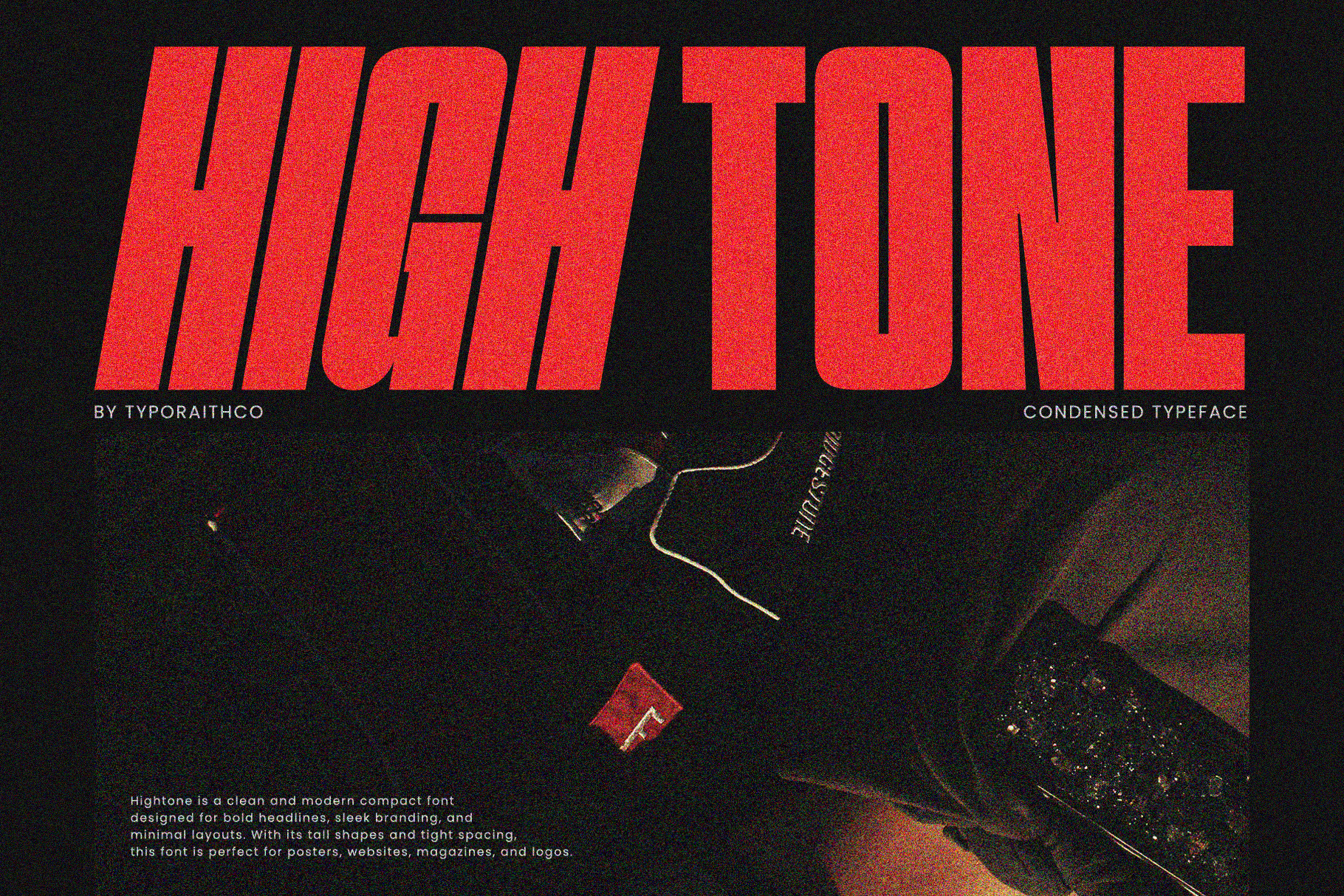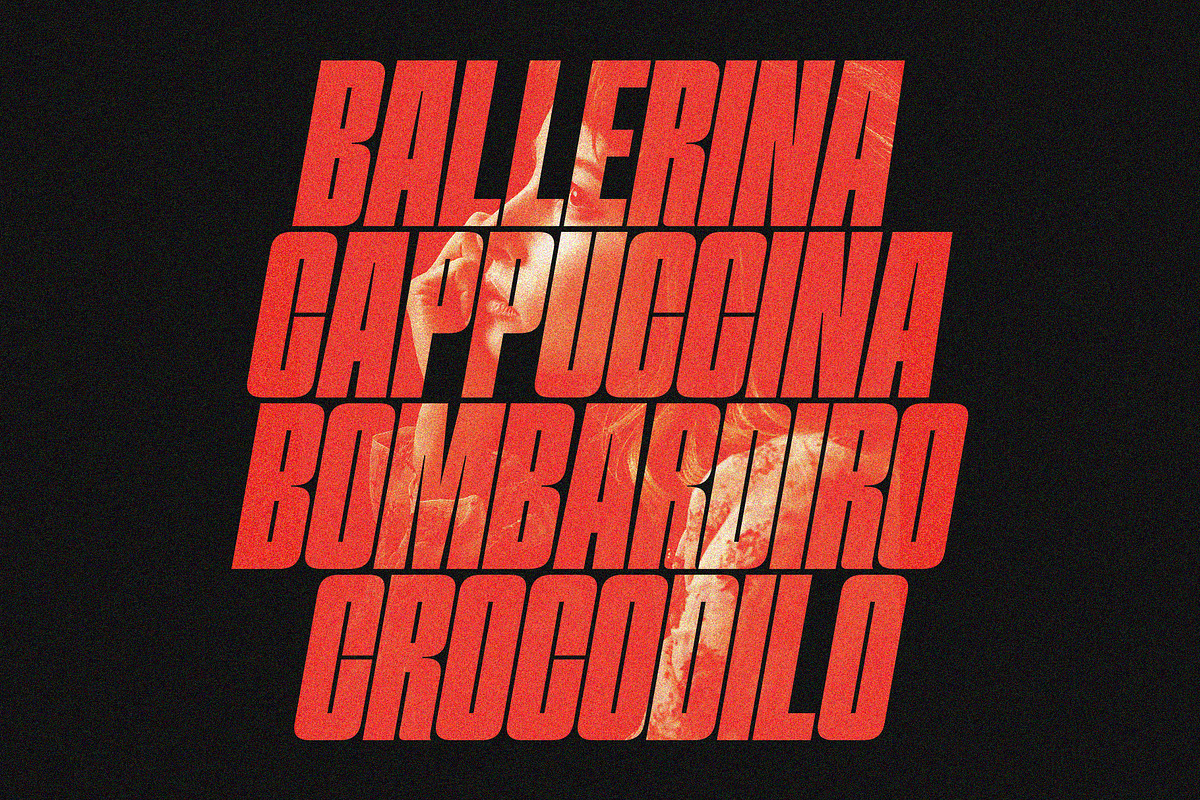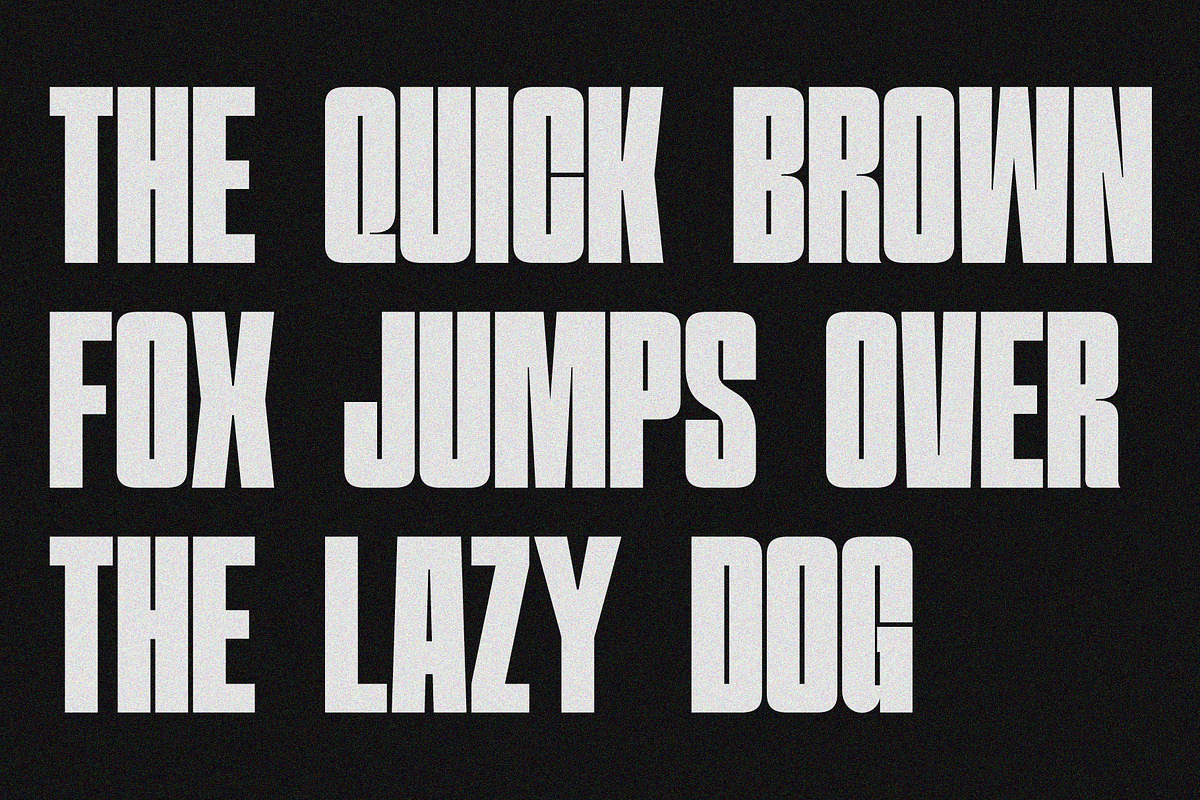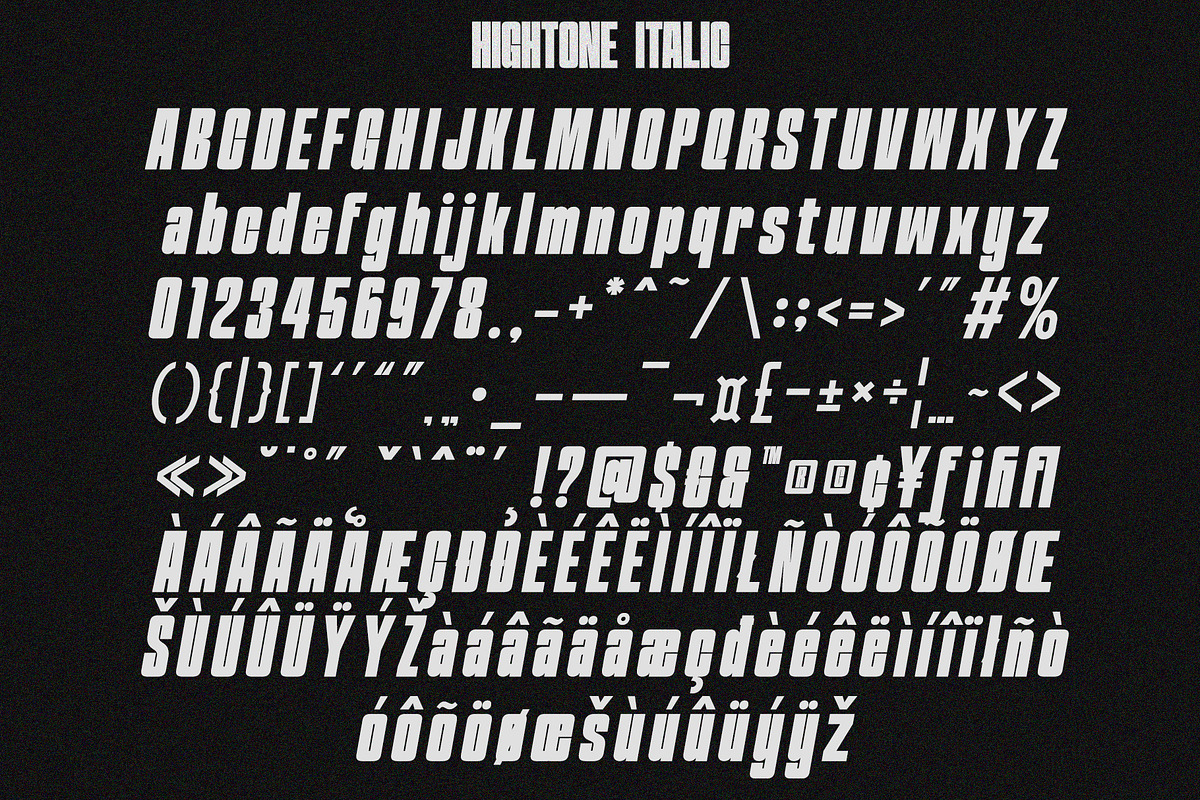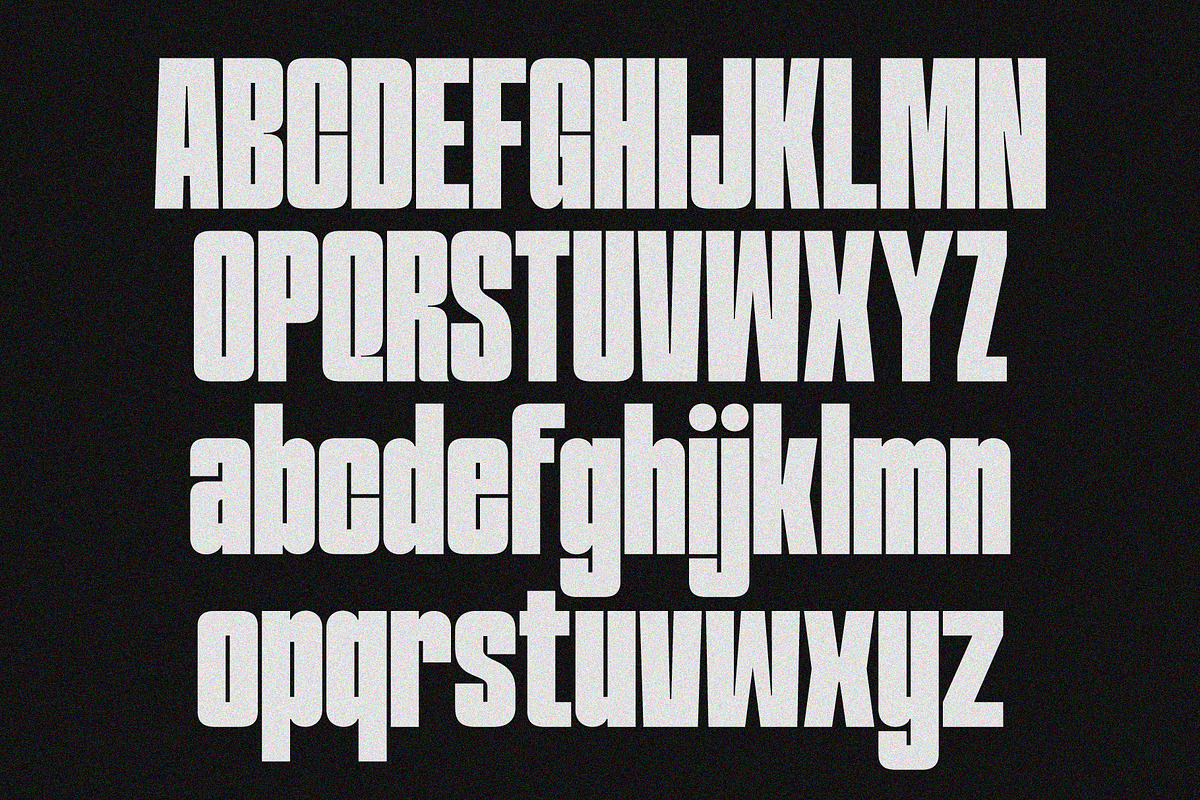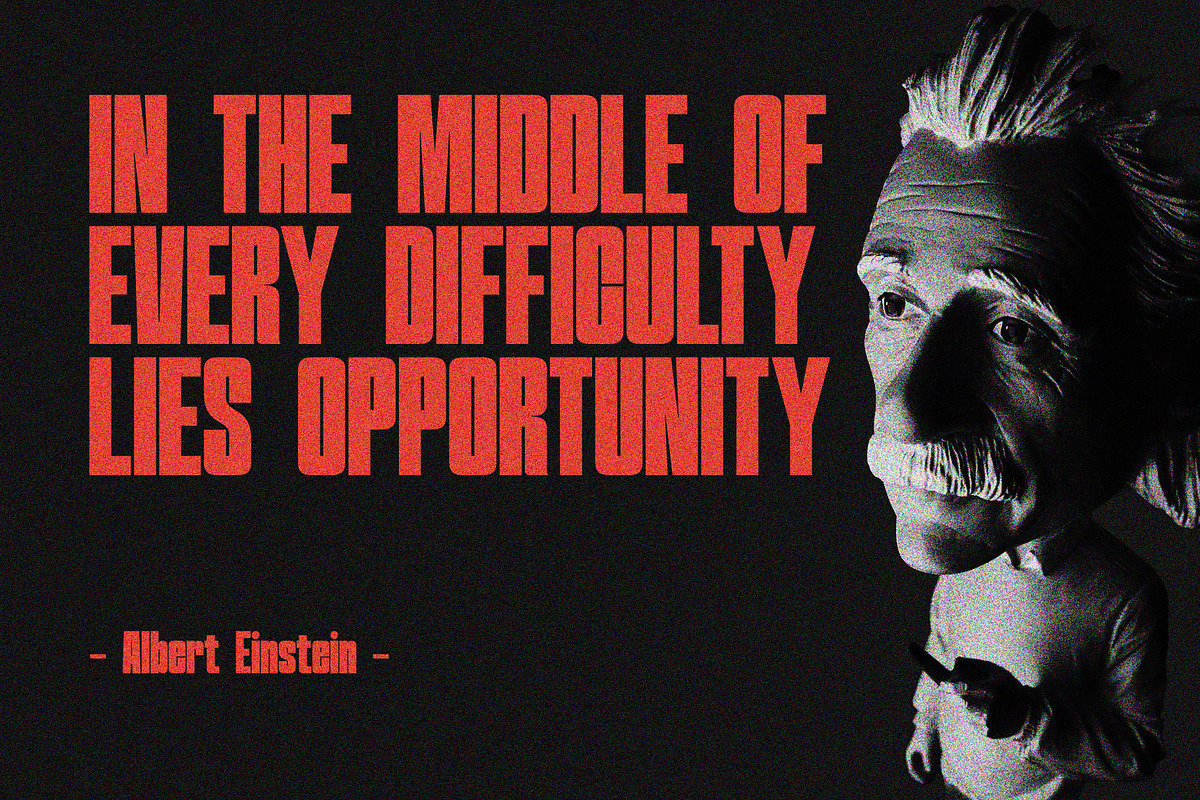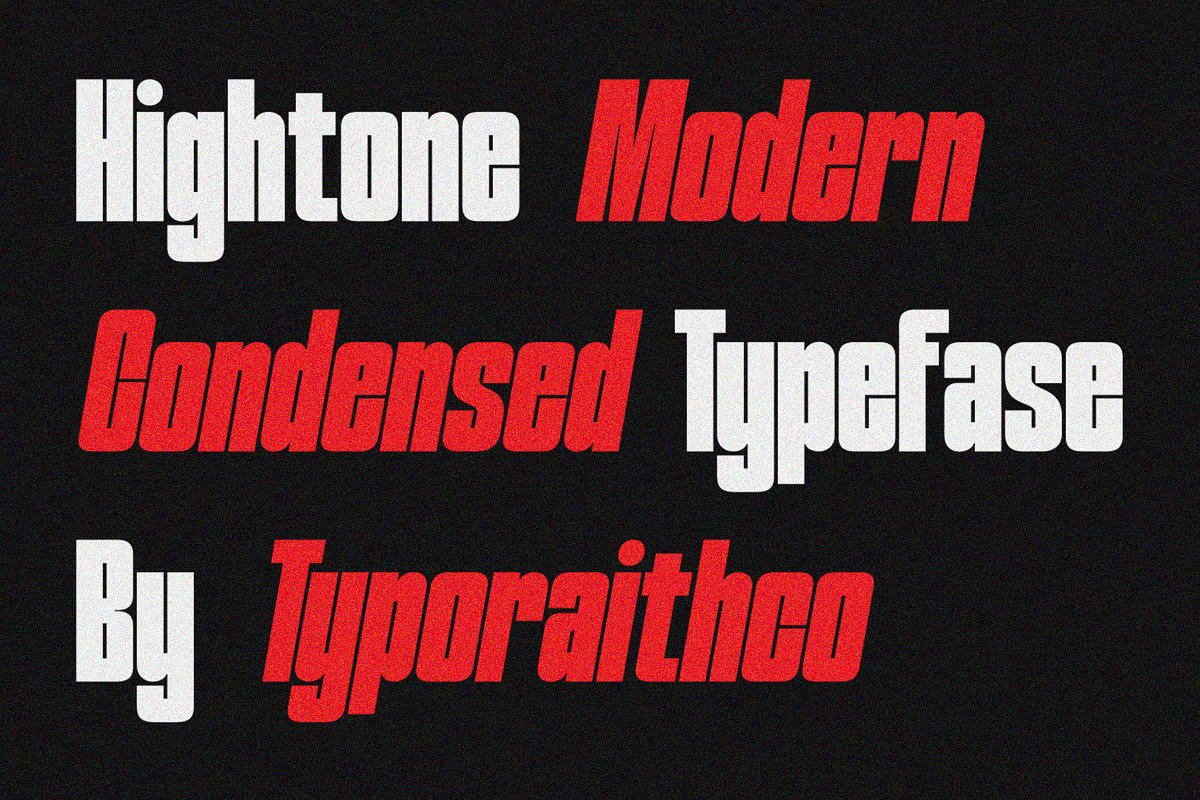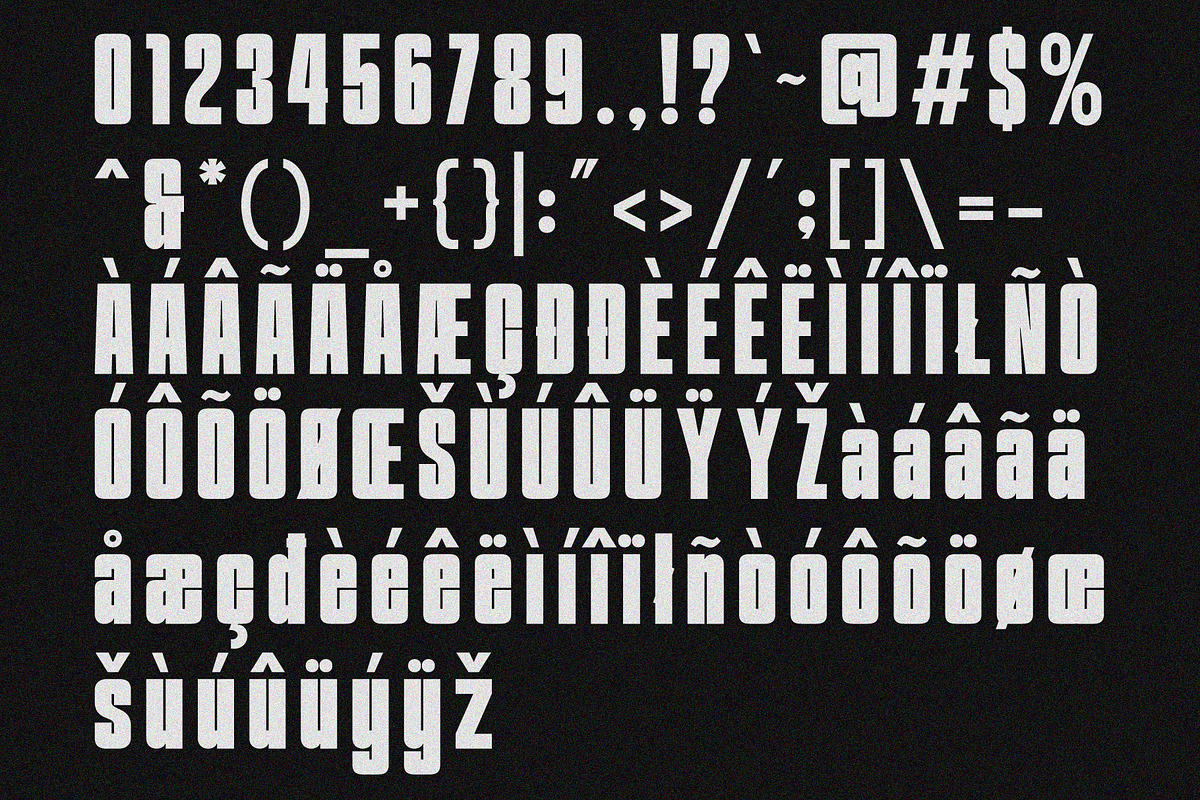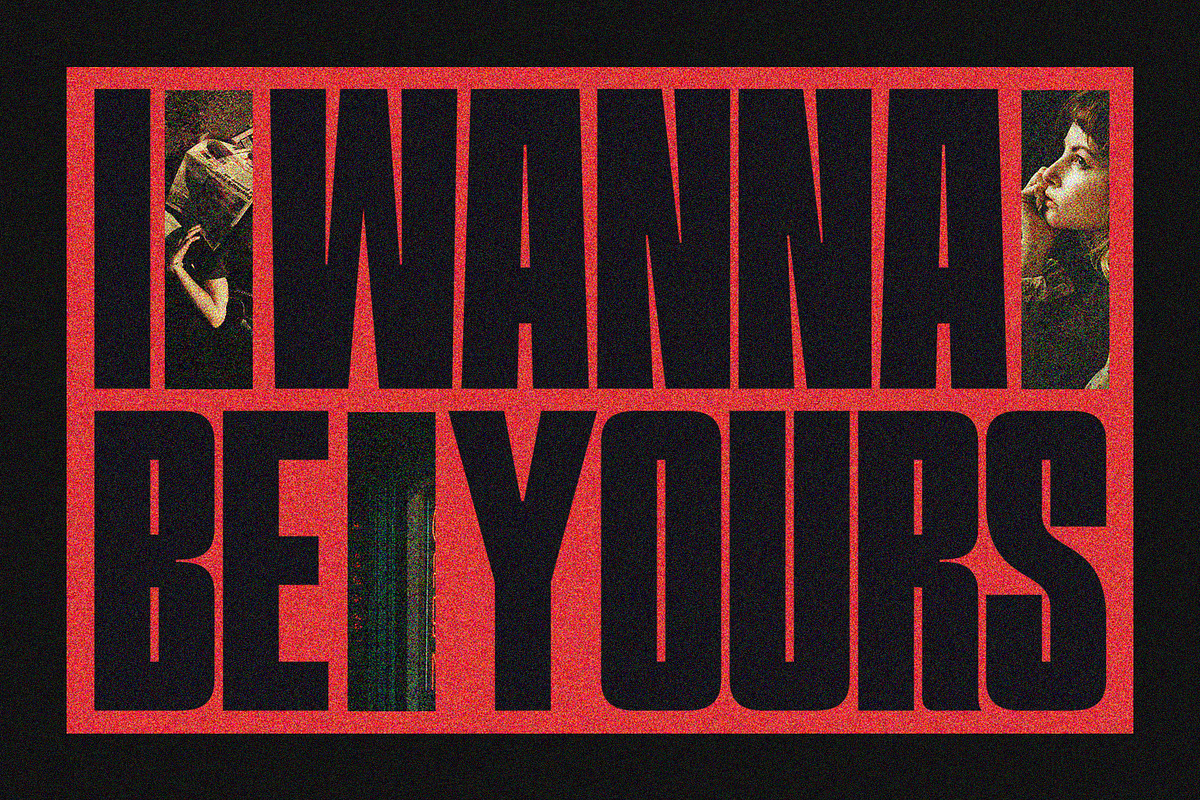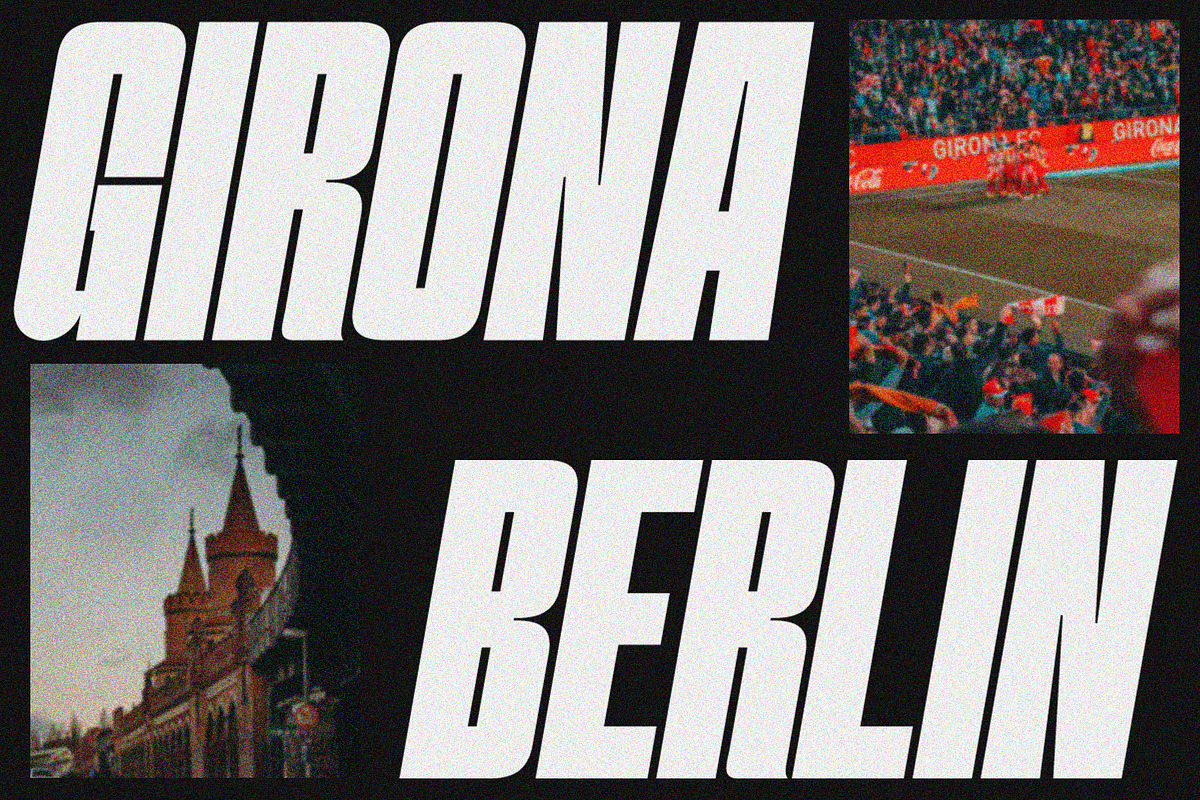
Hightone | Condensed Duo Font
Hightone is a font duo that combines retro charm with modern style. The font includes two matching styles Regular and Italic/Slanted, perfect for bold titles, sleek logos, posters, album covers, and lifestyle branding.
With its tight spacing and tall characters, Hightone delivers a strong visual rhythm that feels both nostalgic and fresh. Whether you’re designing for a synthwave event, fashion label, or editorial layout, this font makes a big impact in a minimal space.
Two styles: Regular & Italic
All caps & multilingual
Perfect for retro, editorial, or modern design